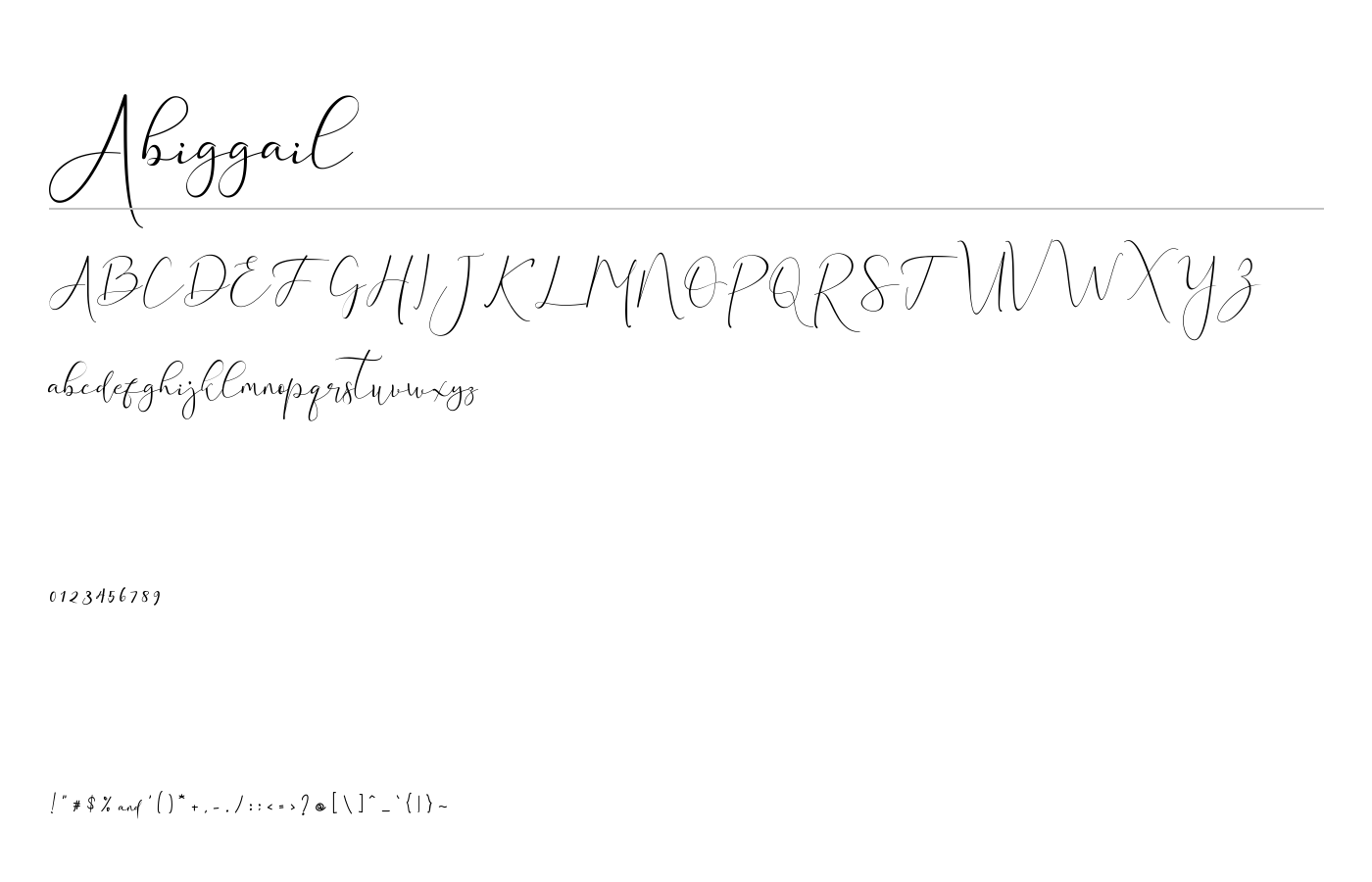
Abiggail is an elegant, thin script font with delicate, flowing strokes that evoke a refined and graceful feel. Its tall, slender letterforms and subtle calligraphic details make it perfect for sophisticated branding, wedding invitations, and stylish editorial use where a touch of femininity and charm is desired. This font shines best in decorative or headline settings where its beautiful, airy design can be fully appreciated.
Abiggail Font
About Abiggail Font